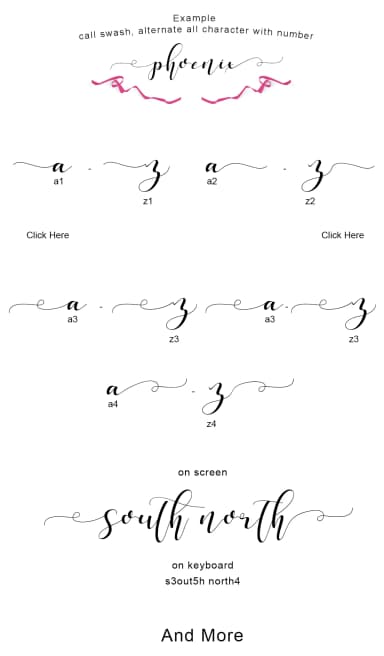
Phoenix Font by Teweka is a flowing calligraphy script that brings refined elegance to creative projects of all scales. This typeface captures the nuanced beauty of hand-lettering while delivering exceptional consistency across its expansive character set of nearly 300 glyphs. Built with OpenType features that unlock stylistic variations and alternates, Phoenix Font gives designers the technical flexibility to customize their typography for specific applications and visual contexts without sacrificing visual harmony.
From designing wedding invitation suites and formal stationery to creating luxury packaging for boutique cosmetics and artisan goods, this script adapts seamlessly to upscale applications. The typeface shines equally in social media graphics, decorative brand identity work, and event promotion materials where flowing letterforms make an immediate visual impact. Its comprehensive glyph support enables smooth handling of multilingual text and specialized design challenges.
The natural stroke variations and flowing curves provide authentic character that feels genuinely personalized rather than mechanical. Whether you're working on a DIY craft project with hand-finished elements or executing a professional branding campaign for a luxury clientele, Phoenix Font delivers the polish and precision that distinguish quality design work from standard applications. Its versatile nature makes it equally comfortable in formal contexts and creative personal projects. Explore the versatility of Phoenix Font and get it on Creative Fabrica.
Phoenix Font is a script font that shines as a display or heading face. Pair it with a clean sans-serif or serif font for body text β the contrast creates a clear hierarchy while the two styles stay balanced and easy to read.
Phoenix Font
by Teweka